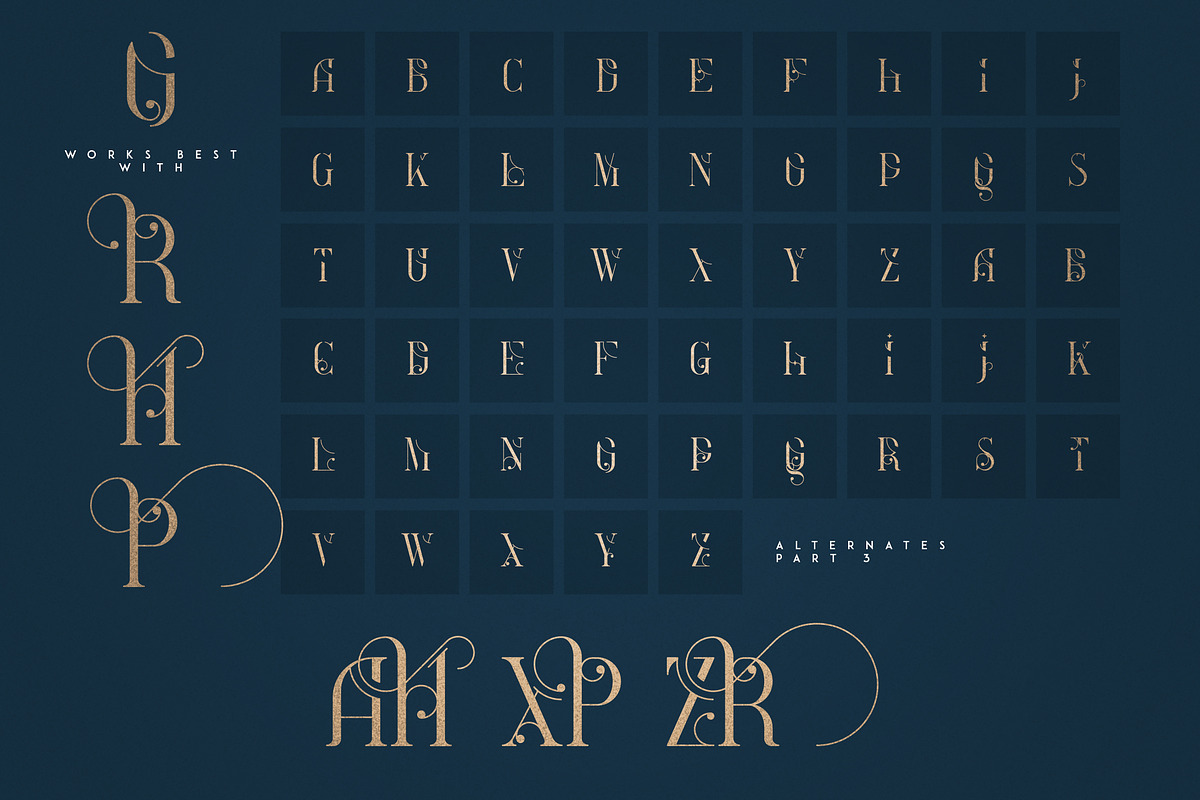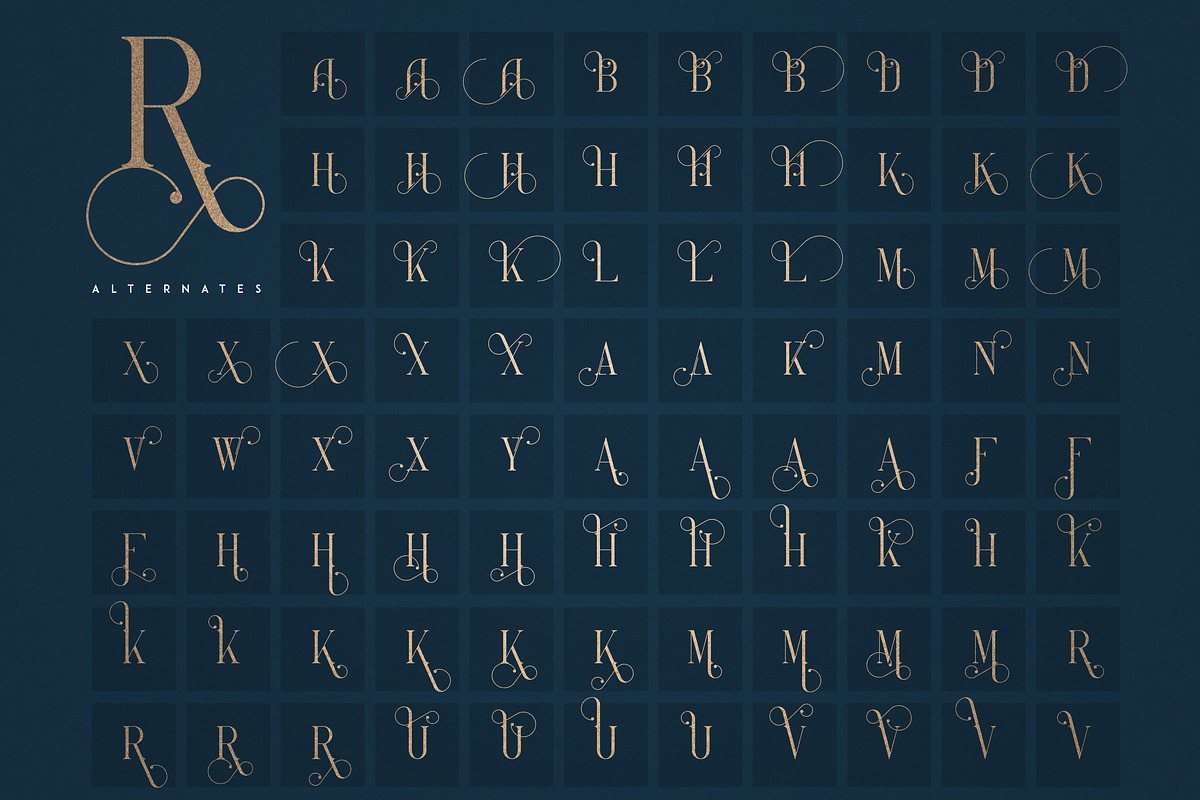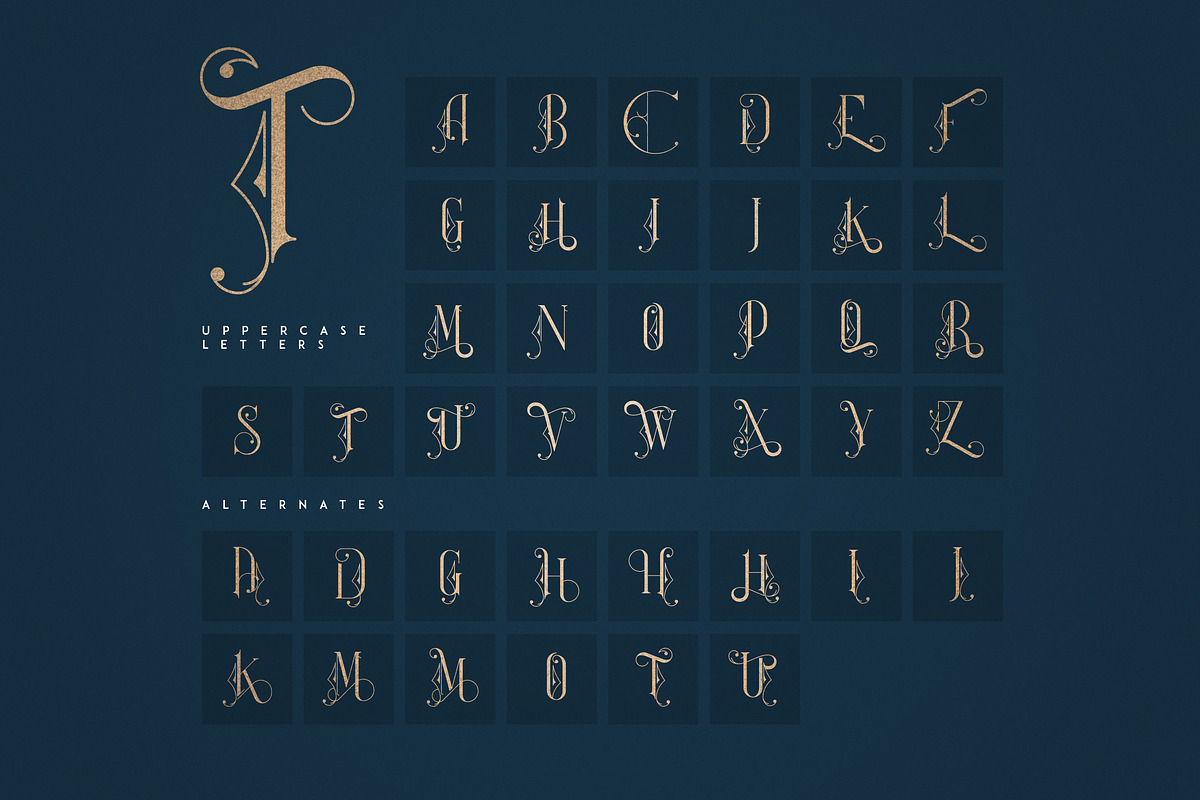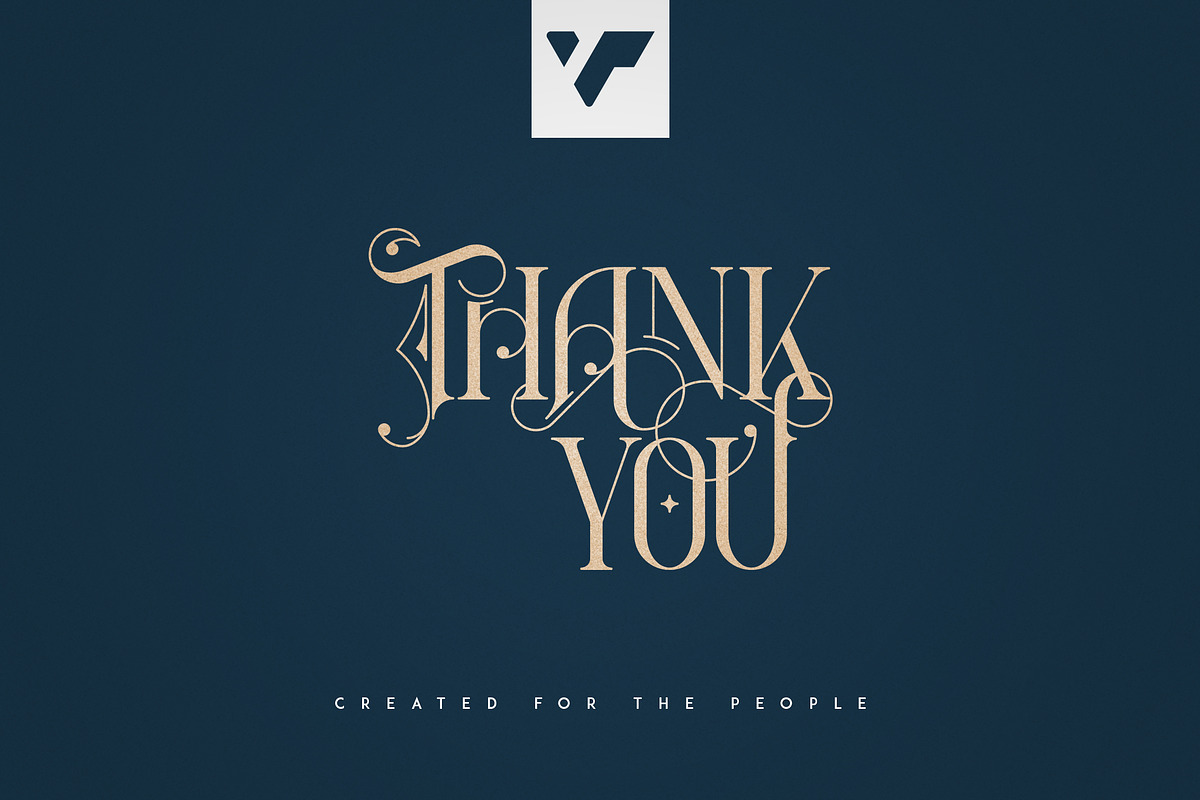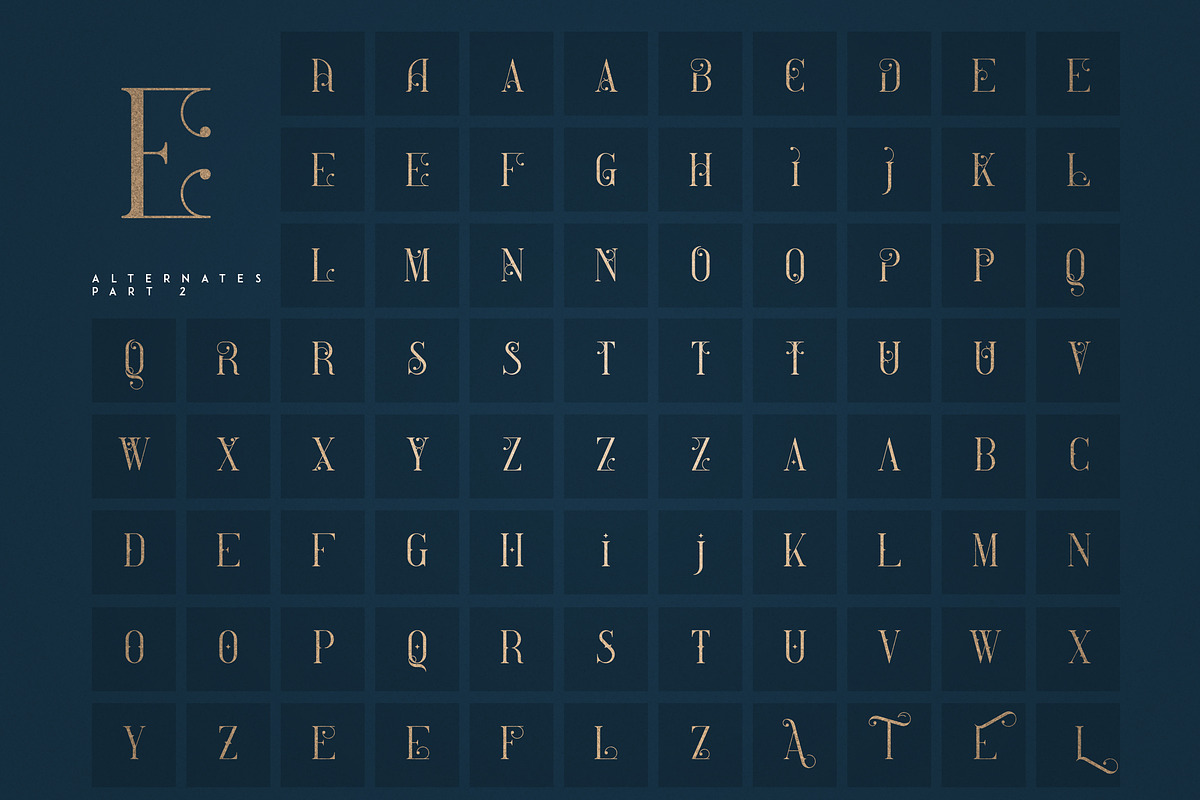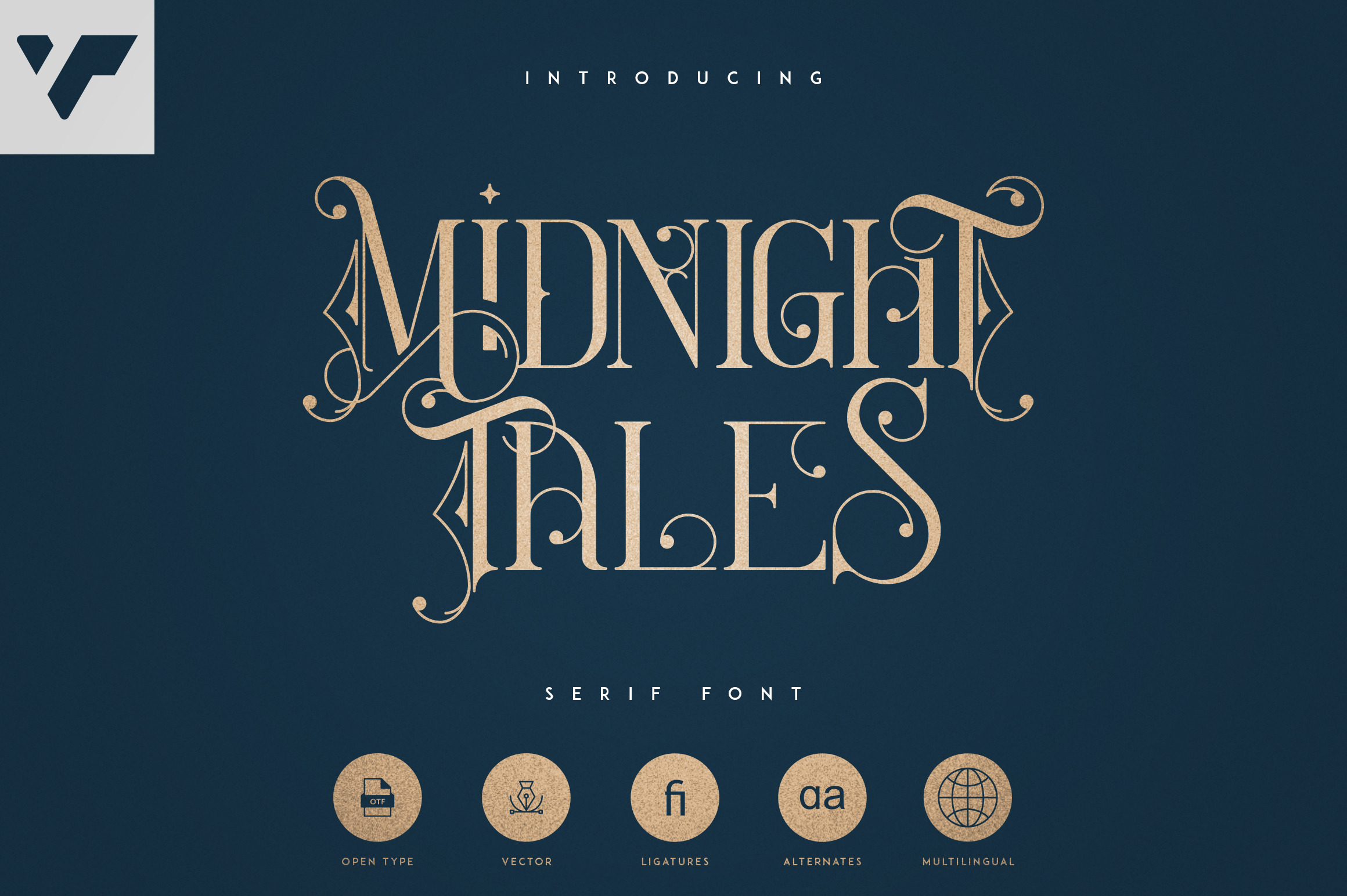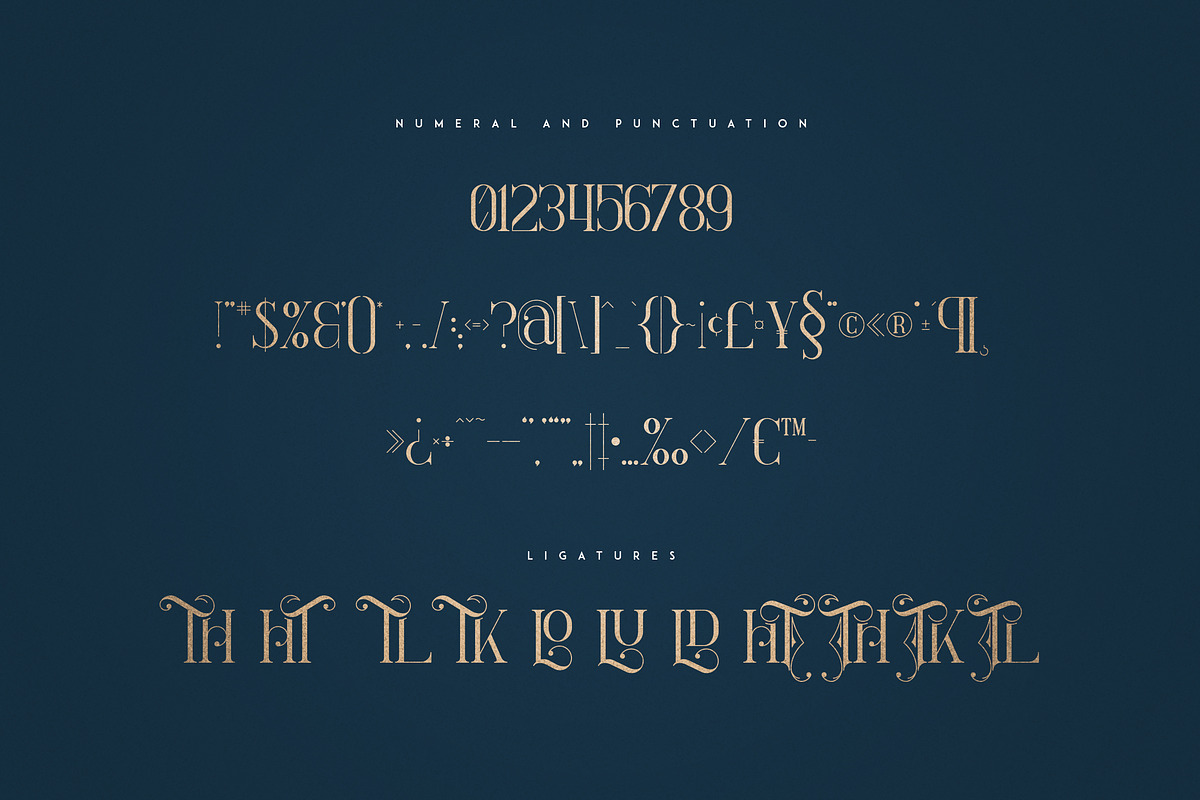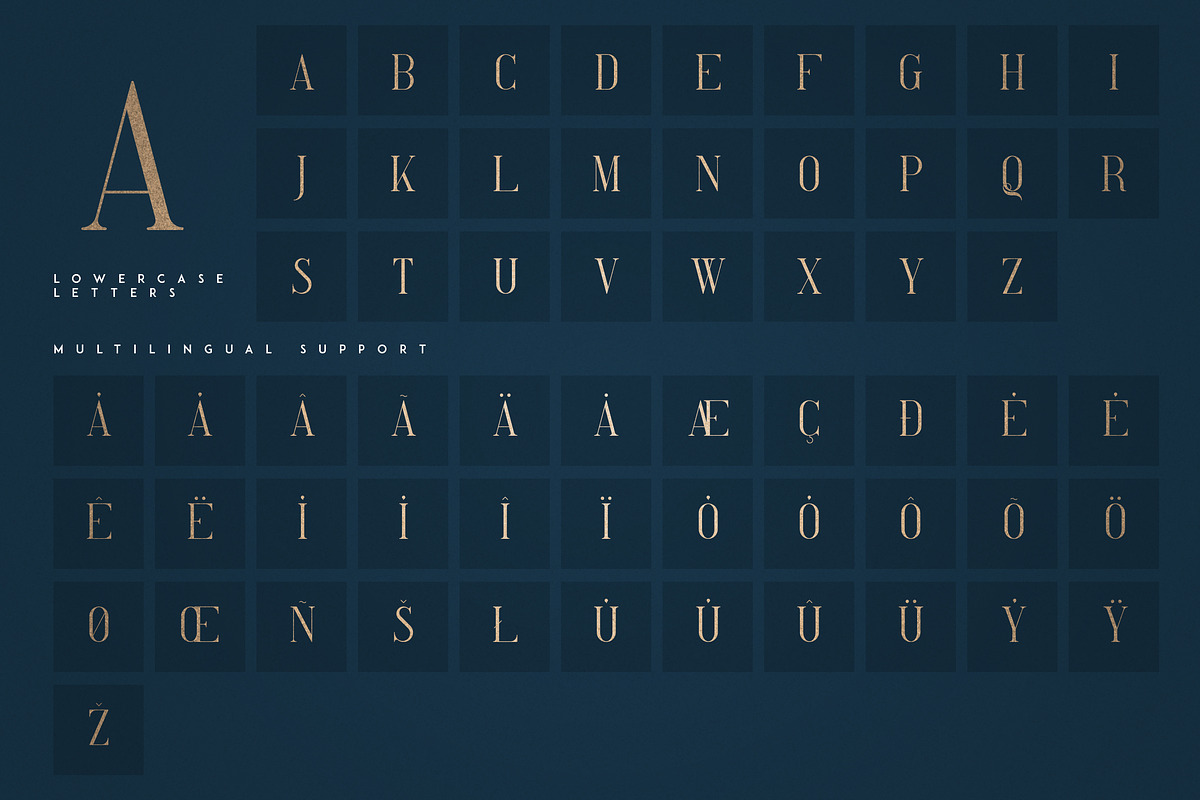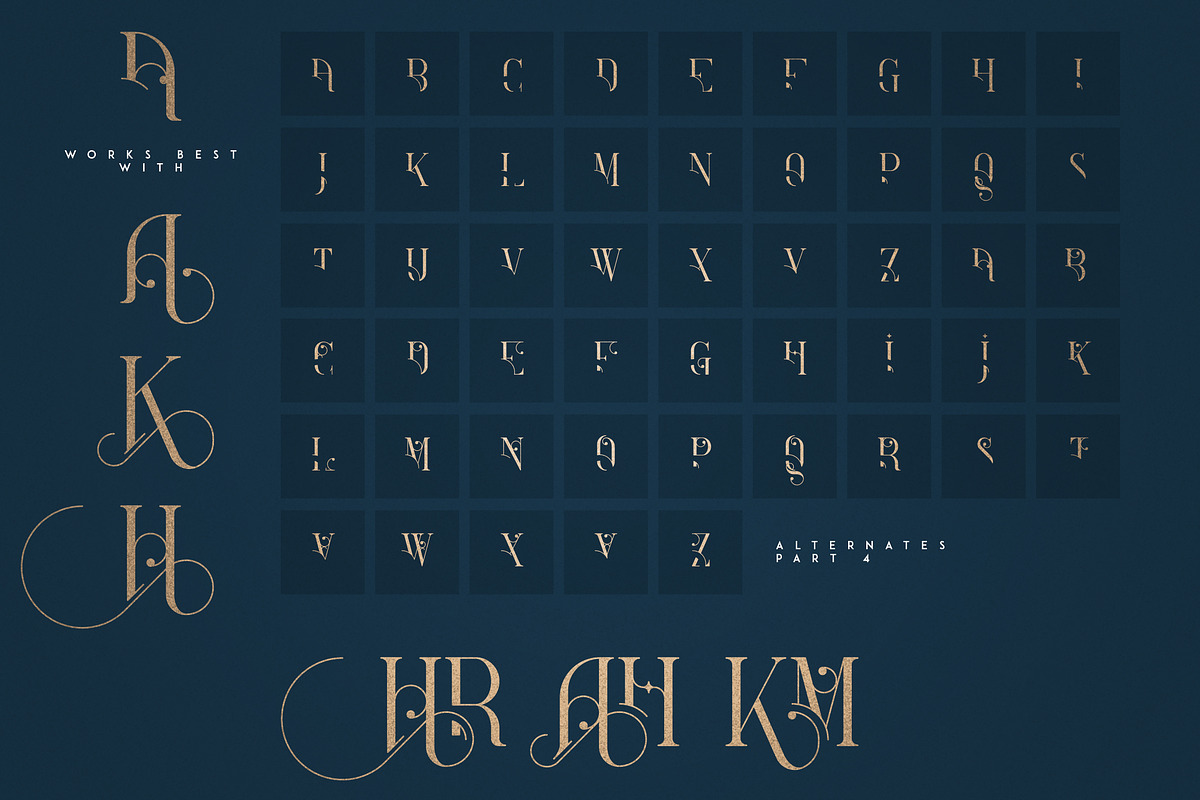
Midnight Tales is vintage, elegant font with tons of alternate glyphs, ligatures and multilingual support. It's a very versatile font that works great in large and small sizes.
Midnight Tales is perfect for branding projects, home-ware designs, product packaging, magazine headers - or simply as a stylish text overlay to any background image.
- Uppercase, lowercase, numeral,punctuation & Symbol
- Alternate glyphs